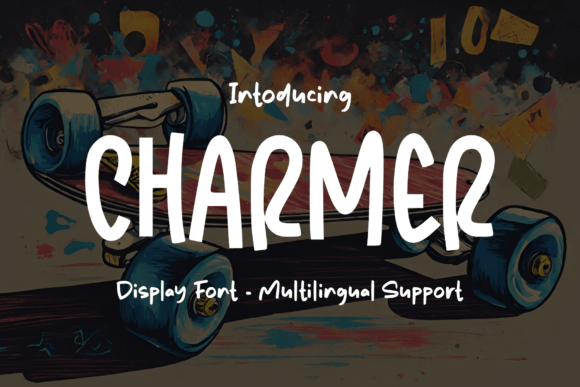
Adorn your creative projects with the Charmer Font - a resplendent display font brimming with allure and elegance. This font is a master of versatility, seamlessly adapting to a myriad of digital display endeavors, leaving your audience mesmerized.
Crafted with meticulous attention to detail by the renowned font foundry DUMADI, Charmer Font possesses a unique charm and warmth that radiates through every design. Its expressive uppercase letters exude a bold and captivating aura, commanding attention on film titles, book covers, subtitles, and countless other design ventures.
Each letter within the Charmer Font is a work of art, meticulously designed with a harmonious blend of bold and stylish elements, resulting in an unforgettable aesthetic. Employ Charmer Font to transport your words to center stage, captivating the imagination of viewers and readers, leaving an indelible impression that elevates your design creations to new heights.
Unleash the boundless possibilities of Charmer Font and embark on a creative journey that knows no limits. Its inherent versatility allows it to seamlessly adapt to a diverse range of digital display applications, ensuring that your designs exude an air of sophistication and charm.
Harness the power of Charmer Font to craft film titles that ignite curiosity and set the stage for an unforgettable cinematic experience. Utilize its captivating presence to grace the covers of books, drawing readers into the captivating worlds within. Let Charmer Font enhance your subtitles, adding an extra layer of intrigue and immersion to your storytelling.
With Charmer Font at your disposal, the boundaries of creativity dissolve, and a world of captivating possibilities awaits. Transform your designs into masterpieces, leaving your audience spellbound and yearning for more.